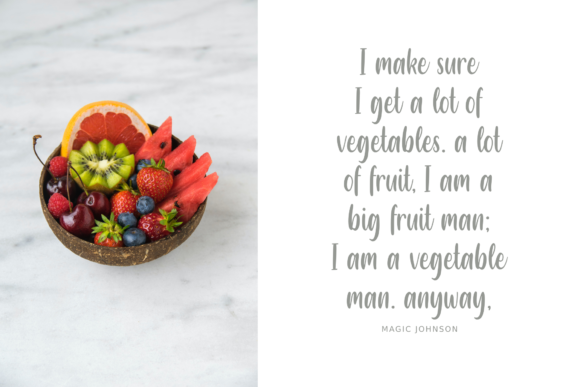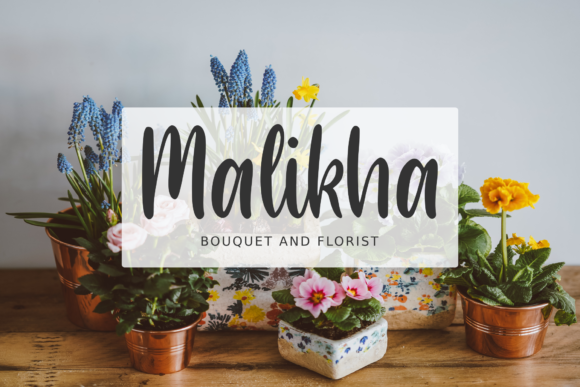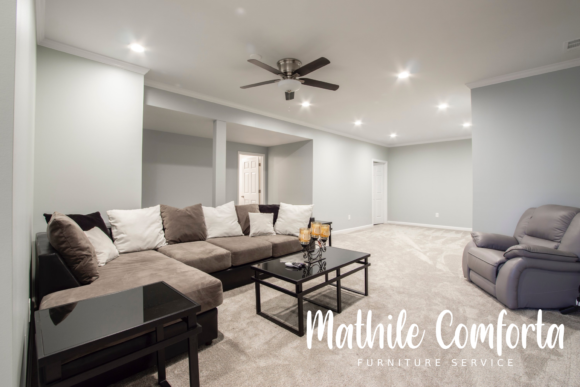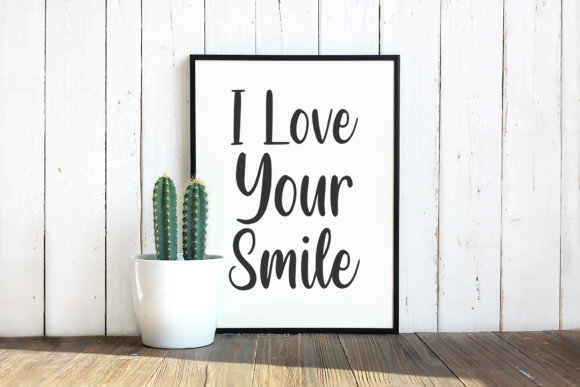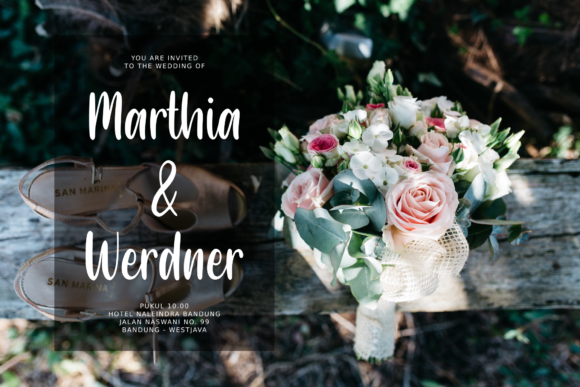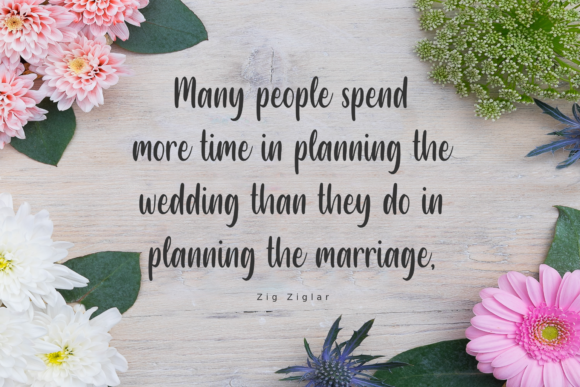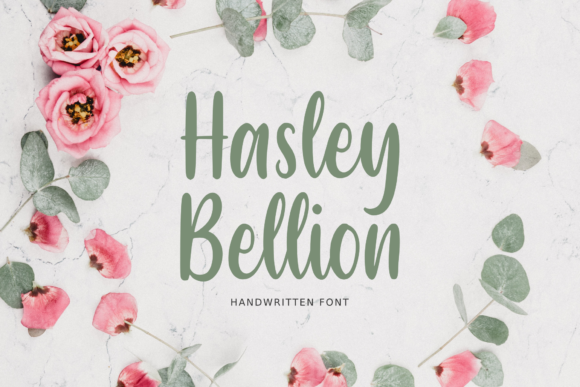
Discover the Elegance of Hasley Bellion Font: A Stylish Handwritten Typeface
Are you a designer or crafter looking for a font that exudes charm and sophistication? Look no further than the Hasley Bellion Font. This stunning handwritten typeface is a stylish homage to classic calligraphy, making it perfect for a wide range of creative projects. In this article, we’ll take a closer look at the features and benefits of Hasley Bellion Font, and explore how it can elevate your designs.
A Font that Combines Charm and Elegance
Hasley Bellion Font feels equally charming and elegant, making it a versatile typeface that can be used in a variety of contexts. Whether you’re designing a wedding invitation, a branding campaign, or a social media graphic, this font is sure to impress. Its unique blend of classic and modern elements gives it a distinctive look that’s both timeless and on-trend.
Key Features of Hasley Bellion Font
So, what makes Hasley Bellion Font so special? Here are just a few of its key features:
- Varying Baseline: Hasley Bellion Font features a varying baseline, which gives it a sense of movement and fluidity. This makes it perfect for creating dynamic, eye-catching headlines and titles.
- Smooth Lines: The font’s smooth lines and curves create a sense of elegance and sophistication, making it ideal for designs that require a touch of luxury.
- Gorgeous Glyphs: Hasley Bellion Font comes with a range of gorgeous glyphs, including ligatures, swashes, and alternates. These glyphs allow you to add an extra level of creativity and flair to your designs.
- Stunning Alternates: The font’s stunning alternates provide even more options for customizing your designs. With a range of alternate characters to choose from, you can create unique and eye-catching text that’s sure to stand out.
Hasley Bellion Font is a perfect choice for designers and crafters who want to add a touch of elegance and sophistication to their work. Whether you’re creating:
- Wedding Invitations: Use Hasley Bellion Font to create beautiful, bespoke wedding invitations that set the tone for a special day.
- Branding Campaigns: This font is ideal for branding campaigns that require a touch of luxury and sophistication.
- Social Media Graphics: Hasley Bellion Font is perfect for creating eye-catching social media graphics that stand out from the crowd.
- Stationery and Packaging: Use this font to create beautiful stationery and packaging that reflects your brand’s personality and style.
Tips for Using Hasley Bellion Font
To get the most out of Hasley Bellion Font, here are a few tips to keep in mind:
- Experiment with Different Sizes: Hasley Bellion Font looks great in a range of sizes, from large headlines to smaller body text. Experiment with different sizes to find the perfect balance for your design.
- Play with Glyphs and Alternates: Don’t be afraid to get creative with the font’s glyphs and alternates. These can add an extra level of interest and personality to your designs.
- Pair it with Other Fonts: Hasley Bellion Font pairs well with a range of other fonts, from modern sans-serifs to elegant serifs. Experiment with different pairings to find the perfect combination for your design.
Hasley Bellion Font is a stunning handwritten typeface that combines charm and elegance in a unique and stylish way. With its varying baseline, smooth lines, gorgeous glyphs, and stunning alternates, this font is perfect for designers and crafters who want to add a touch of sophistication to their work. Whether you’re creating wedding invitations, branding campaigns, or social media graphics, Hasley Bellion Font is sure to impress. So why not give it a try and see the difference it can make in your designs?